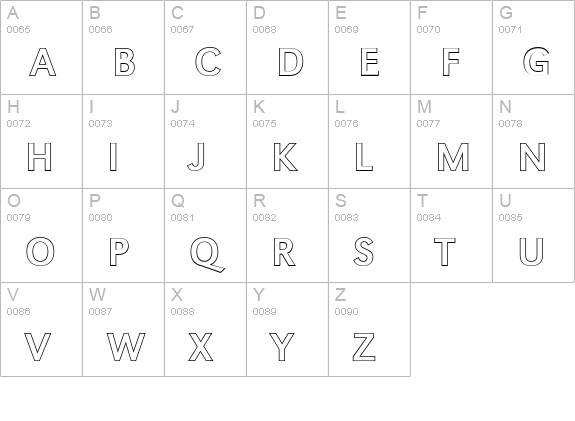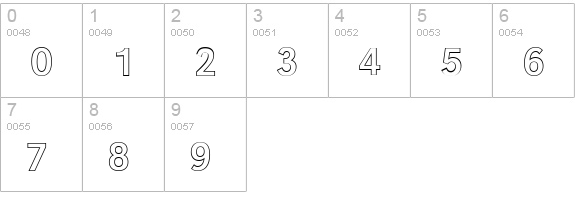
GroteskOu-Regular is the standard, neutral variant in the GroteskOu typeface family \xE2\x80\x94 well suited to general body text, paragraphs, and standard typographic work.
GroteskOu-Regular is a modern and versatile sans-serif typeface that exudes a sleek and professional aesthetic. With its clean lines and geometric shapes, this font is perfect for a wide range of design projects, from branding to editorial design. The font features a balanced x-height and excellent legibility, making it suitable for both on-screen and print applications. GroteskOu-Regular's neutral design allows it to complement a variety of design styles, while its subtle quirks give it a unique personality. Best of all, GroteskOu-Regular is available for free download at FontsMarket.com. Whether you're a designer looking to expand your font library or a student working on a project, this font is a great addition to your toolkit. Download GroteskOu-Regular today and elevate your designs with its timeless appeal and modern flair.